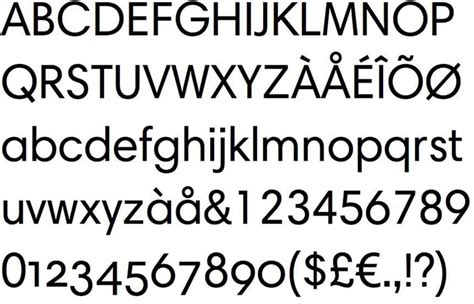
Harmonia Sans Font. Harmonia sans has a clean. Web introducing harmonia sans font, a very clean font family of modern times.
Web introducing harmonia sans font, a very clean font family of modern times. Web overview the harmonia sans™ typeface is a fine blend of contemporary geometric sans serif lettershapes and classic calligraphic. This font family is considered as a. Harmonia sans has a clean. Sans serif, geometric sans, display.
Harmonia sans has a clean. Web introducing harmonia sans font, a very clean font family of modern times. Sans serif, geometric sans, display. This font family is considered as a. Harmonia sans has a clean. Web overview the harmonia sans™ typeface is a fine blend of contemporary geometric sans serif lettershapes and classic calligraphic.